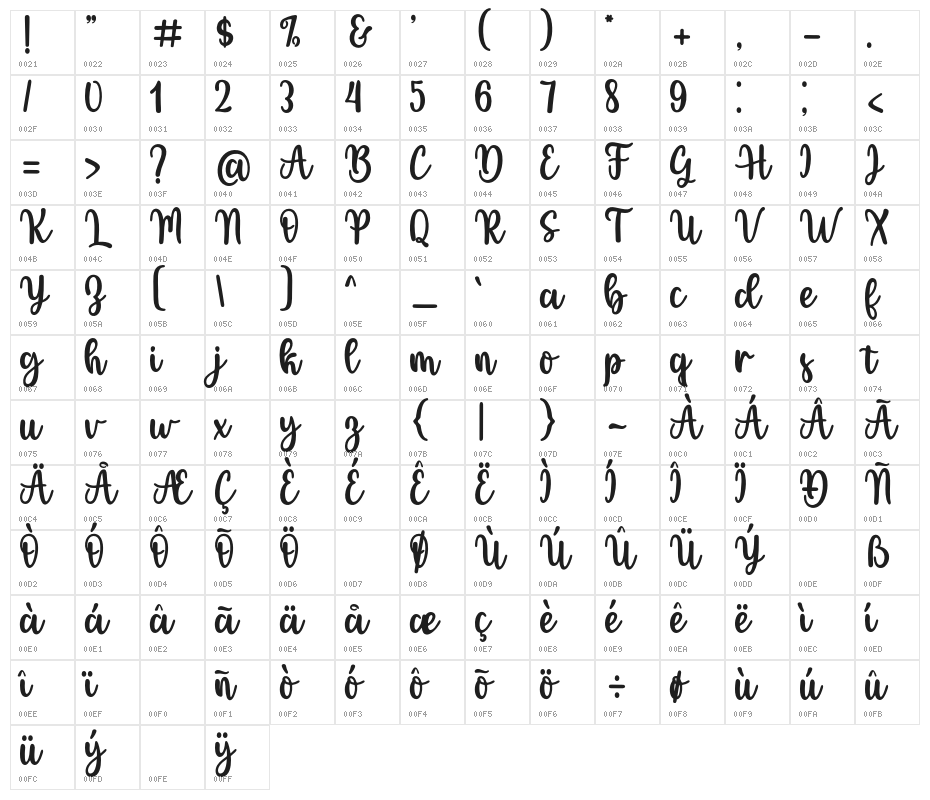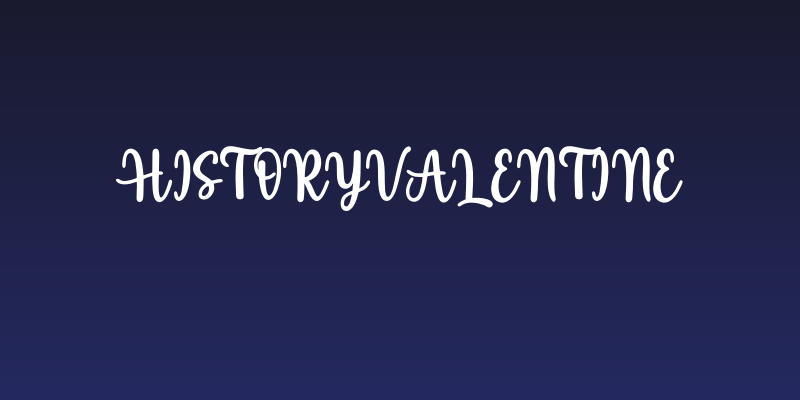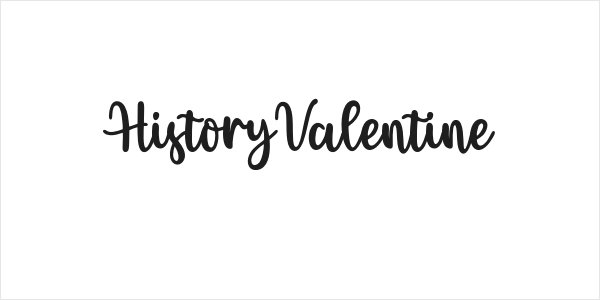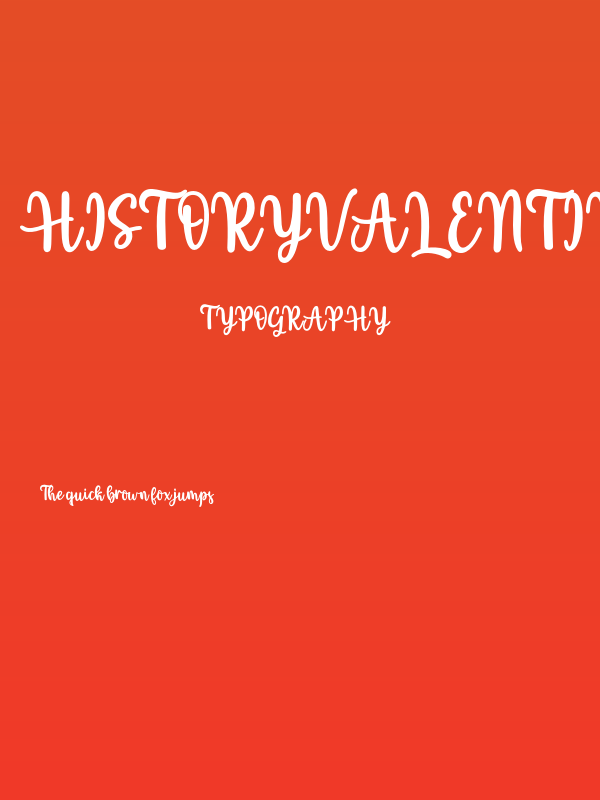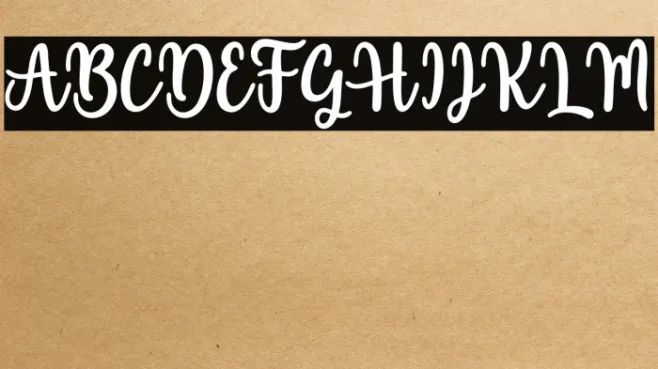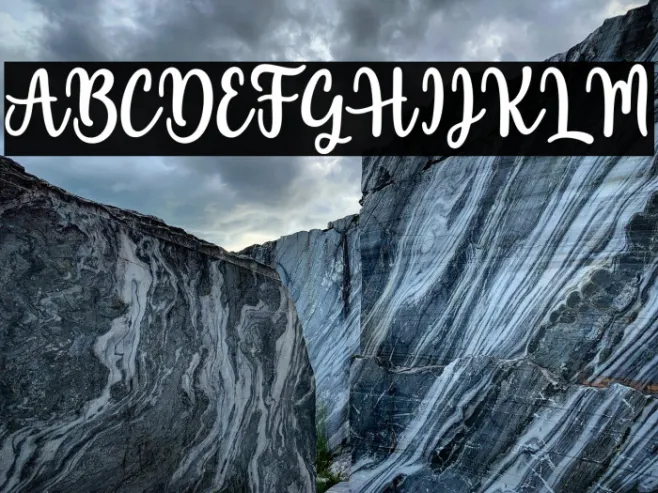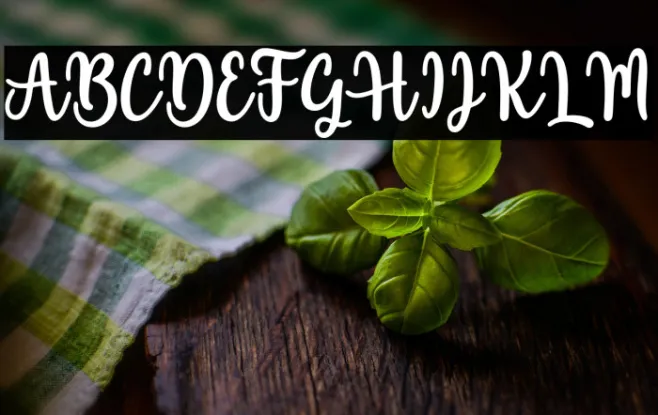
HistoryValentine Font
HistoryValentine Description
This font features a playful and whimsical script style, characterized by its flowing and connected letters. The uppercase letters are bold and slightly rounded, giving a friendly and approachable feel. The lowercase letters maintain a consistent flow with elegant curves and loops, enhancing the handwritten aesthetic. The numbers are bold and clear, ensuring readability while maintaining the playful style. Special characters are designed to match the overall aesthetic, with smooth curves and a cohesive look. This font is perfect for projects that require a personal touch, such as invitations, greeting cards, or branding materials.
| Proposed Projects | Ideal for invitations, greeting cards, branding, and personal projects. |